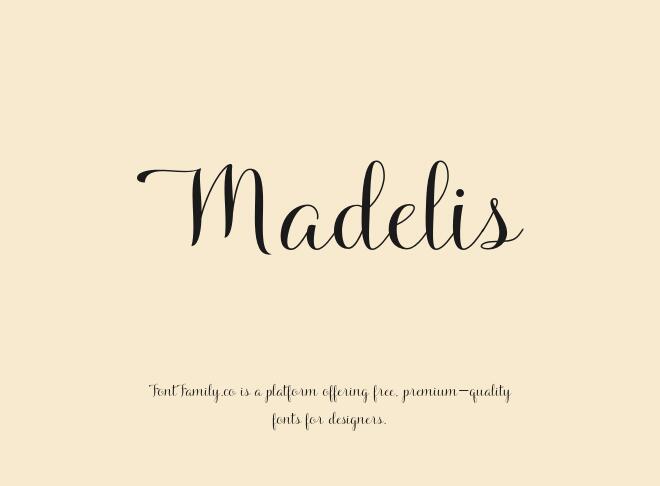
Madelis Font
Madelis Font is a modern and elegant handwritten typeface crafted by Creative Designer. Its unique and decorative style sets it apart, making it ideal for personal projects, branding, logo design, and other creative designs where personality and individuality are key. Its modern yet elegant style is reminiscent of classic handwritten scripts, but with a contemporary twist that's perfect for today's digital landscape. Madelis Font is a free font for personal use, offering designers a unique option in their typography toolkit. Its versatility and charm make it a great choice for those looking to add character and elegance to their designs.